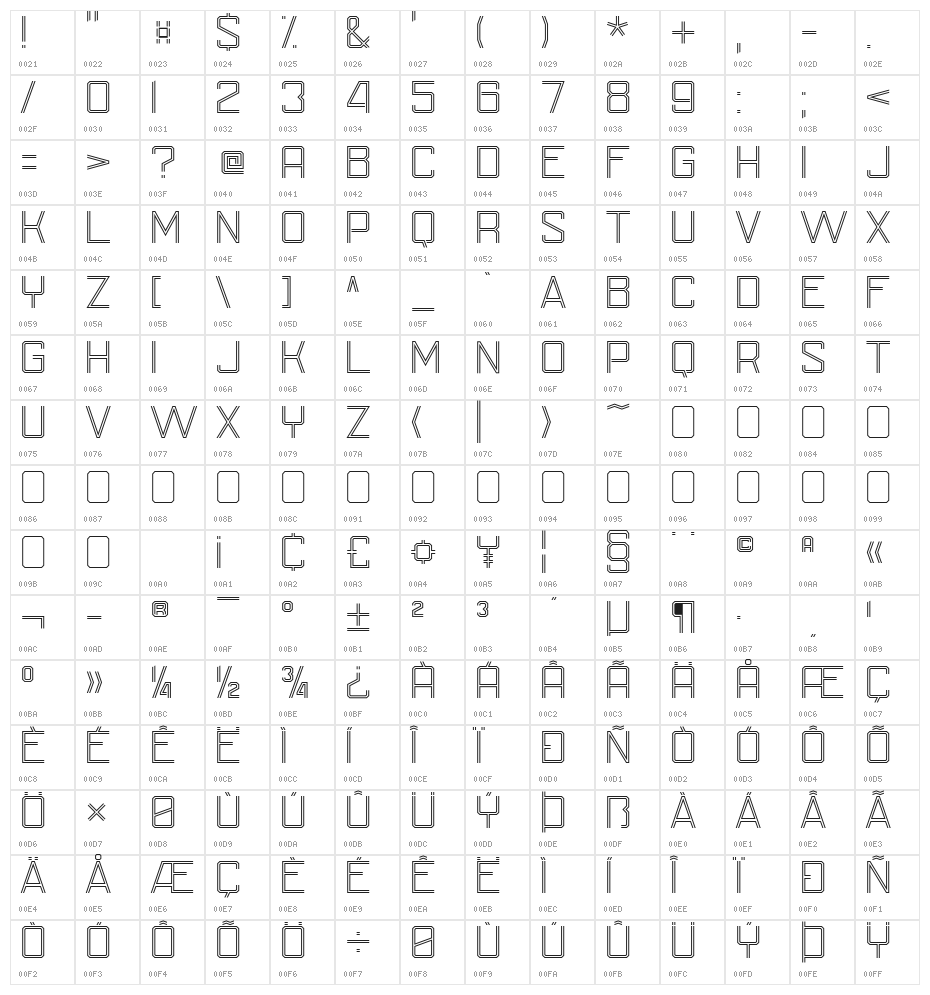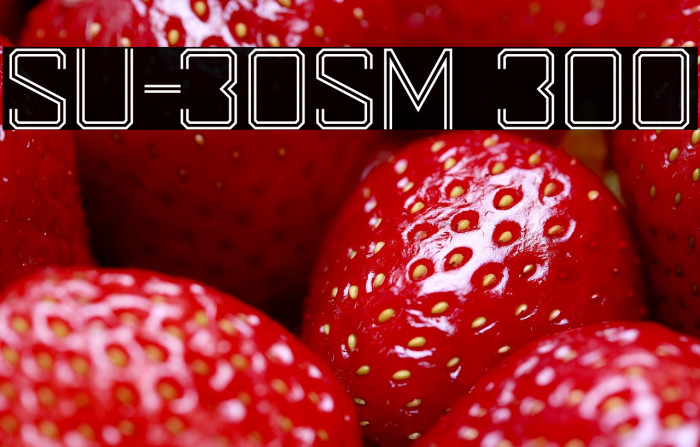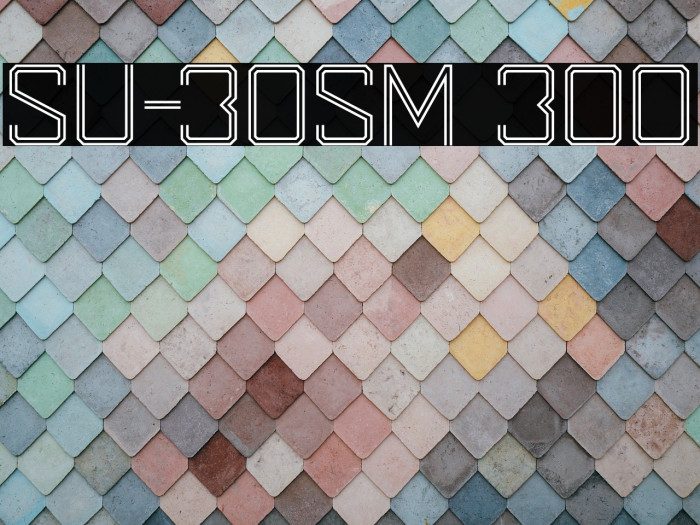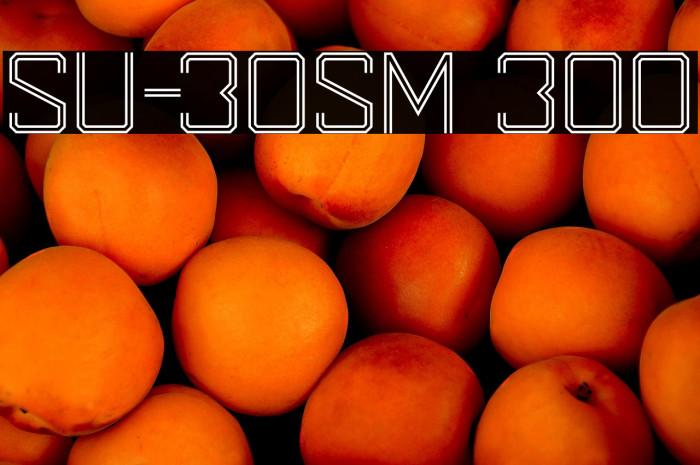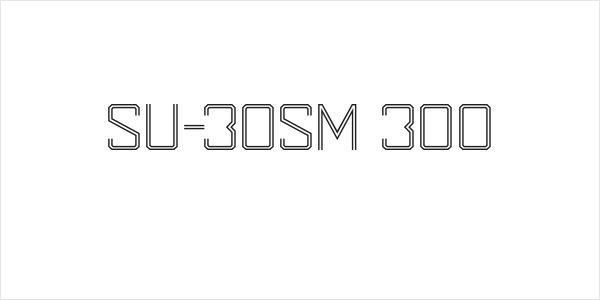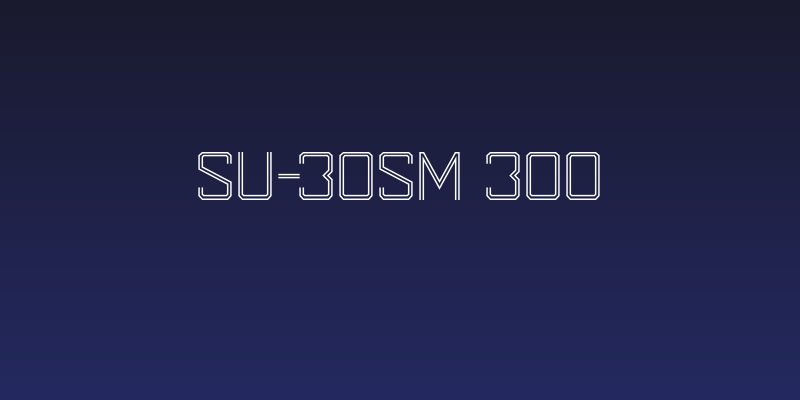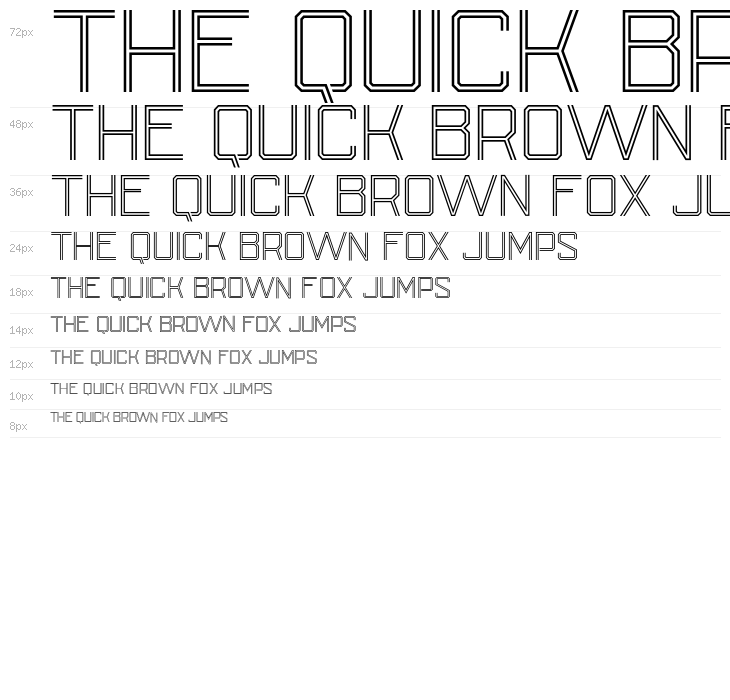
SU-30SM 300 Font
SU-30SM 300 Description
This font features a geometric, technical design with a modern and futuristic aesthetic. The characters are constructed with precise, angular lines, giving them a mechanical and industrial feel. The double-line structure creates a sense of depth and complexity, making it ideal for projects that require a bold and striking visual impact. The uppercase and lowercase letters maintain a consistent style, while the numerals and special characters complement the overall design. The font's clean and structured appearance makes it suitable for technology-themed projects, branding, and signage.
Use CaseHeadlines, Logos, Signage
Proposed ProjectsIdeal for technology branding, industrial design, signage, and futuristic themes.